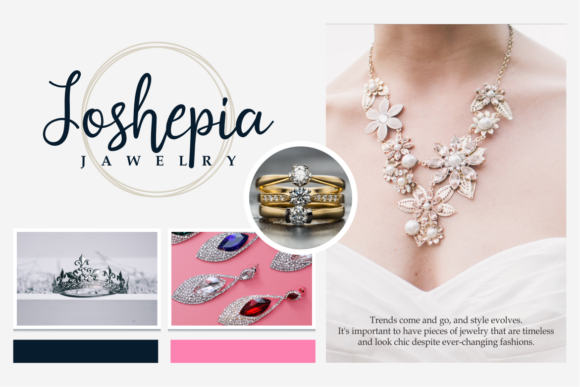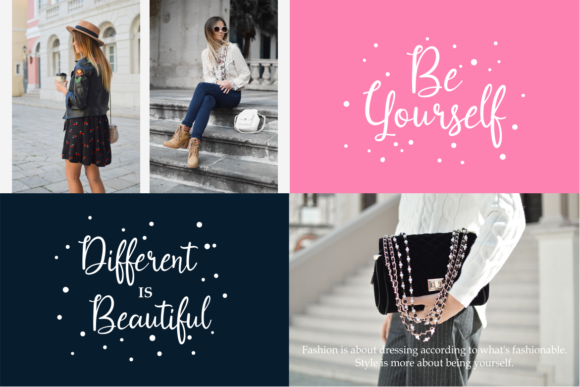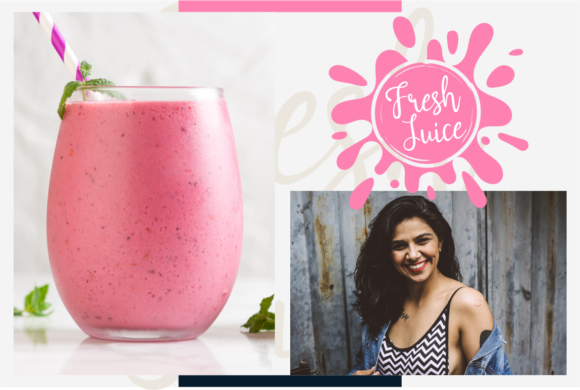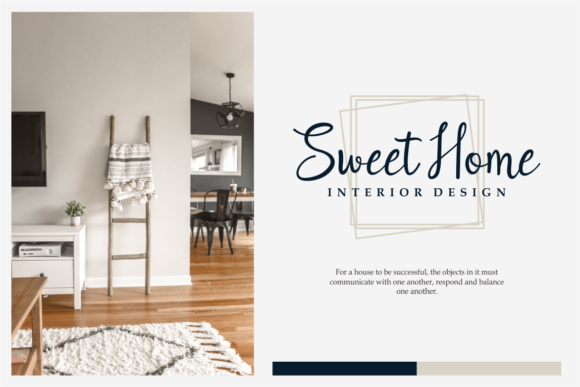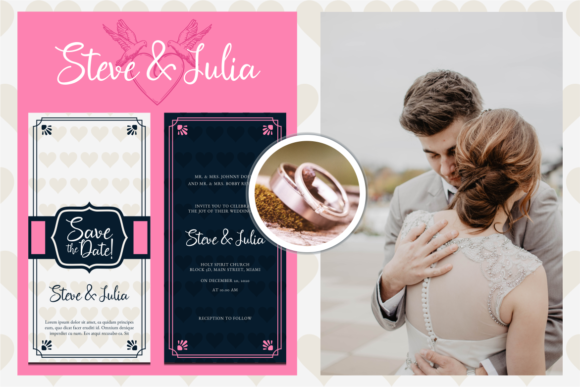
Alysha Font
About Alysha Font
The Alysha is an amazing handwritten font. Its round shapes give it a natural elegance and will be great for logos, branding, magazines, posters, quotes, business cards, and much more!